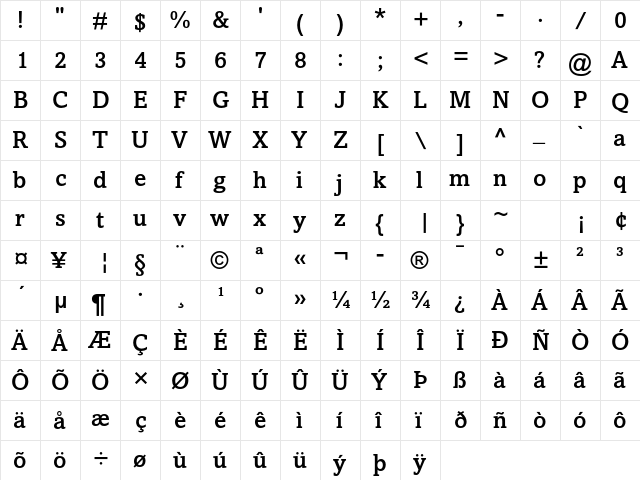
Amasis MT Std Medium Regular Font Preview
Amasis MT Std Medium Regular
Amasis MT Std Medium Regular Font Details
| Foundry | Agfa Monotype Corporation |
Design Context for Amasis MT Std Medium Typeface
Amasis MT Std Medium takes a measured approach to typography — its balanced proportions and neutral character make it a reliable workhorse for both digital and print work.